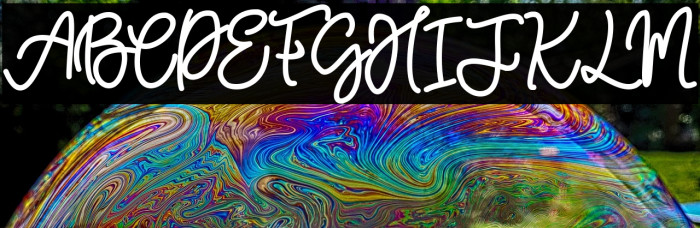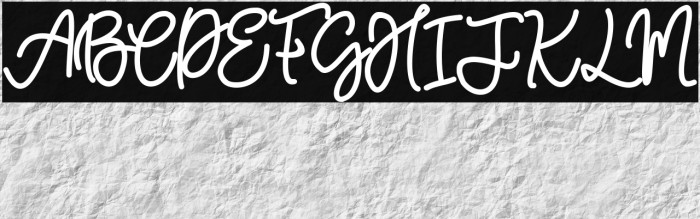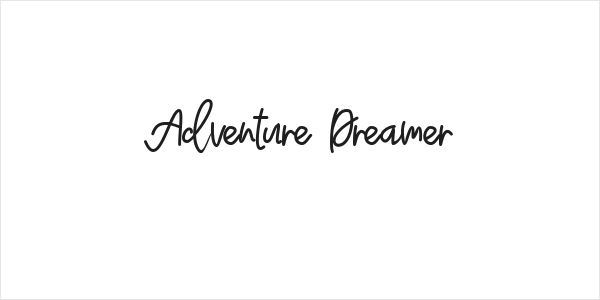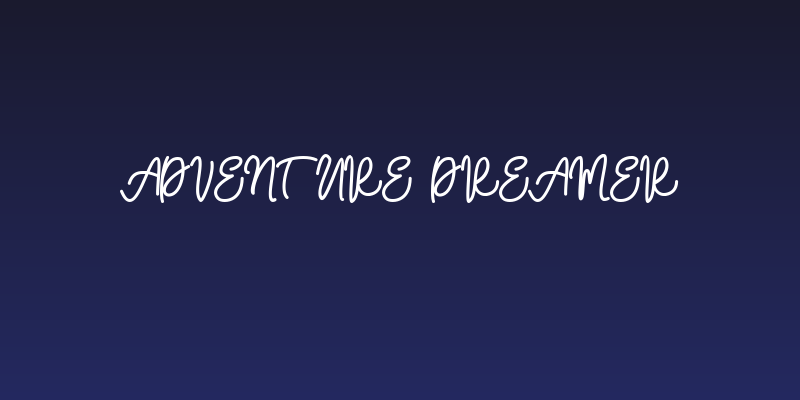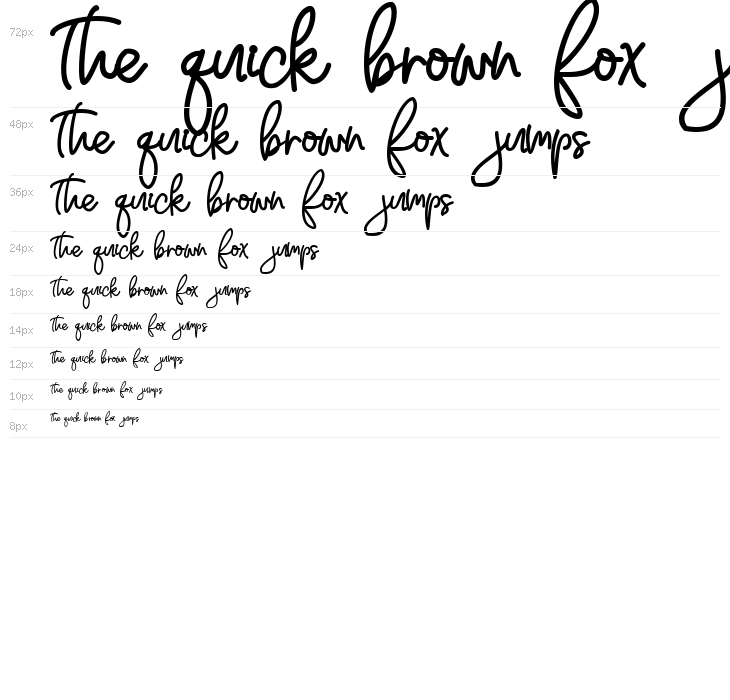
Adventure Dreamer Font
Adventure Dreamer Description
This font exudes a playful and whimsical charm, characterized by its flowing, cursive style. The letters are interconnected, creating a sense of continuity and fluidity. The uppercase letters maintain a consistent height, while the lowercase letters feature elegant loops and curves, adding to the font's dynamic appearance. The numbers and special characters are crafted with the same attention to detail, ensuring a cohesive look across all elements. This font's handwritten aesthetic is both approachable and stylish, making it suitable for a variety of creative projects.